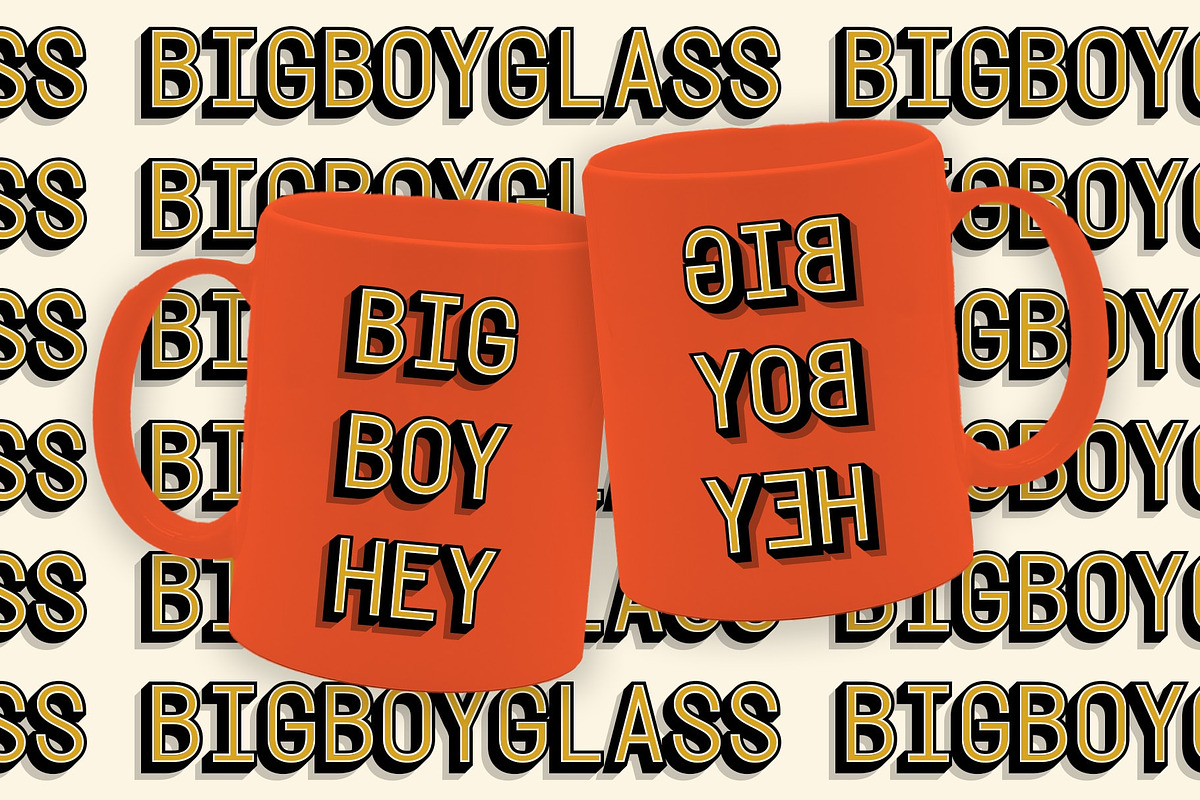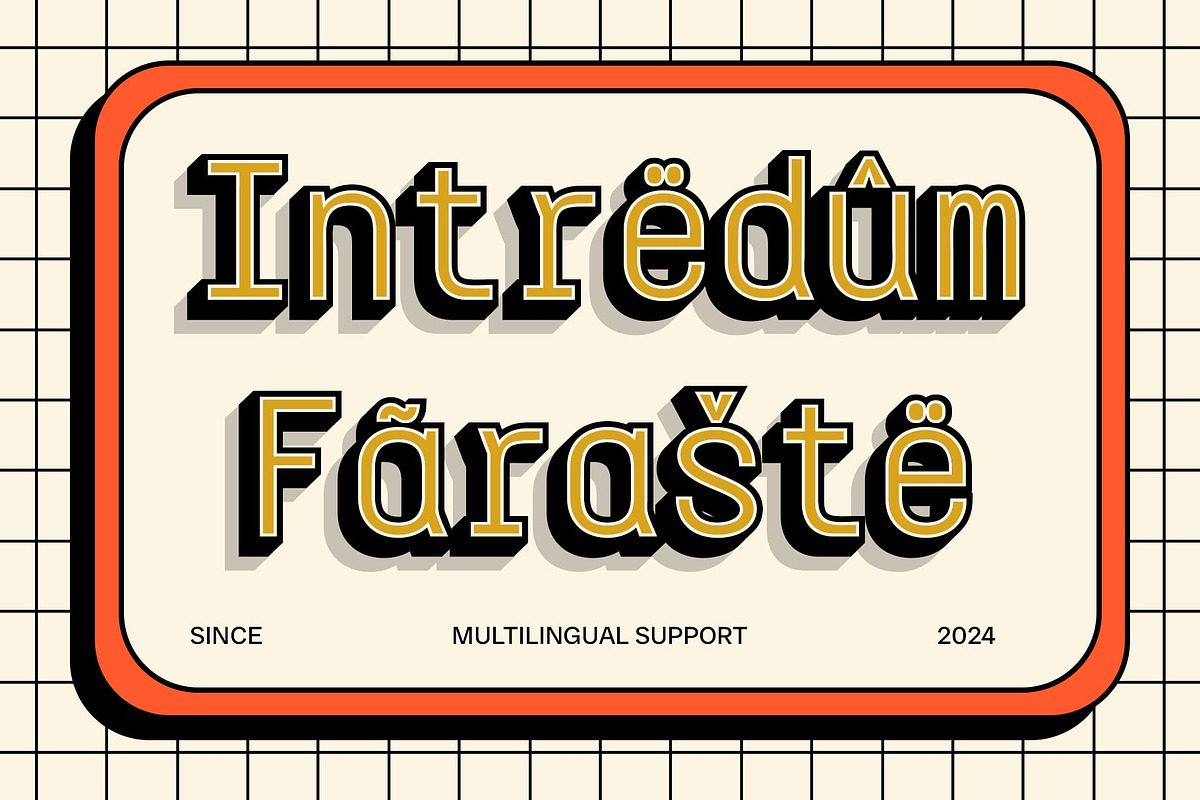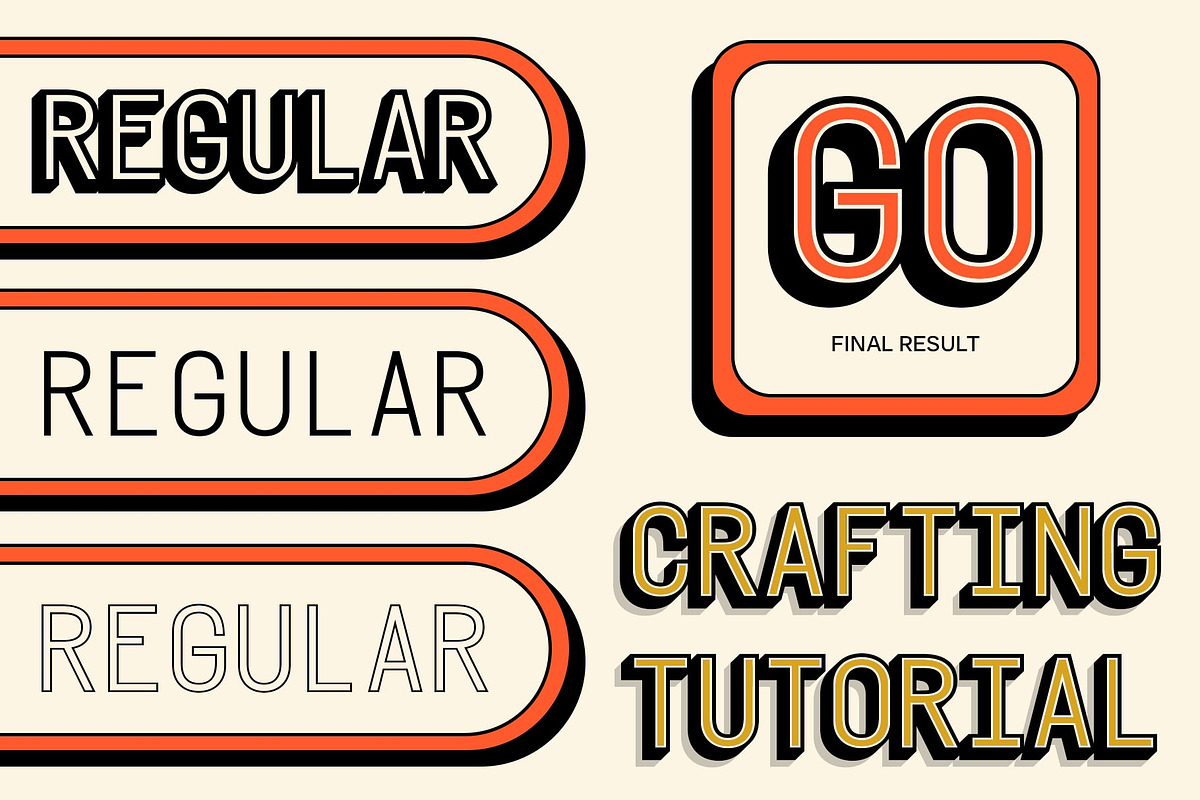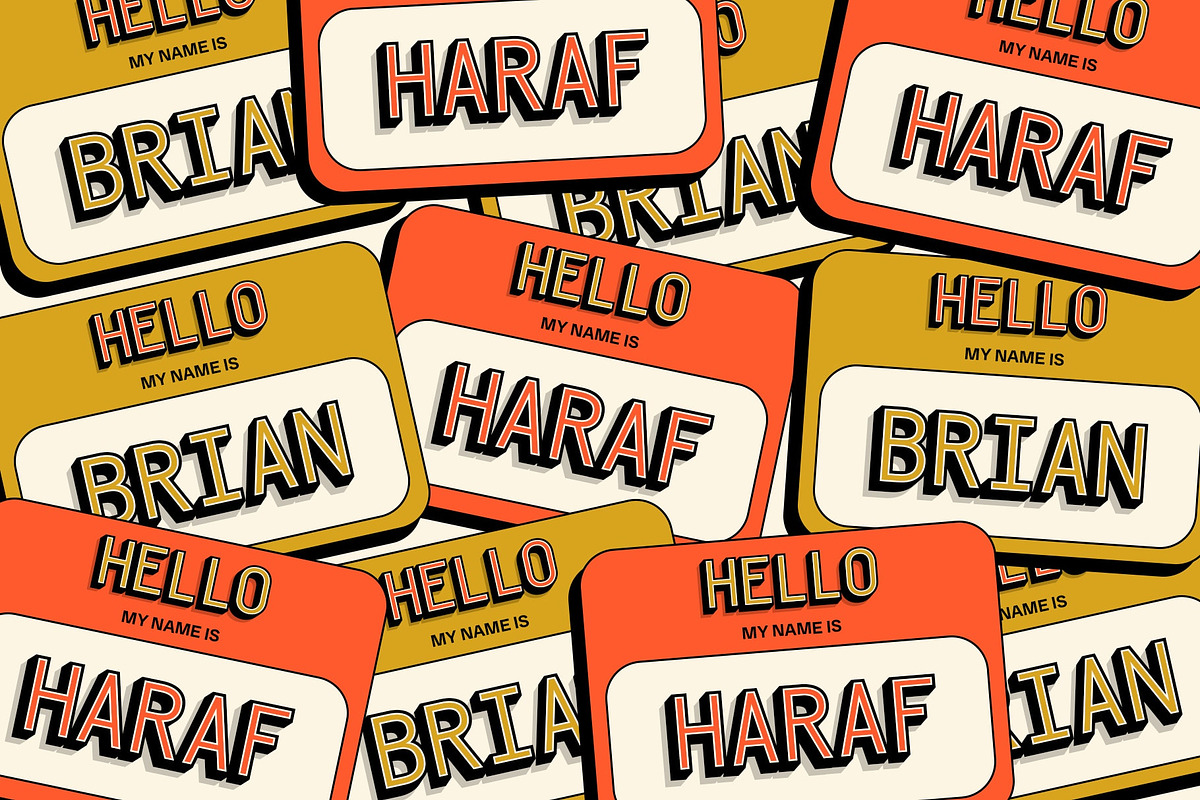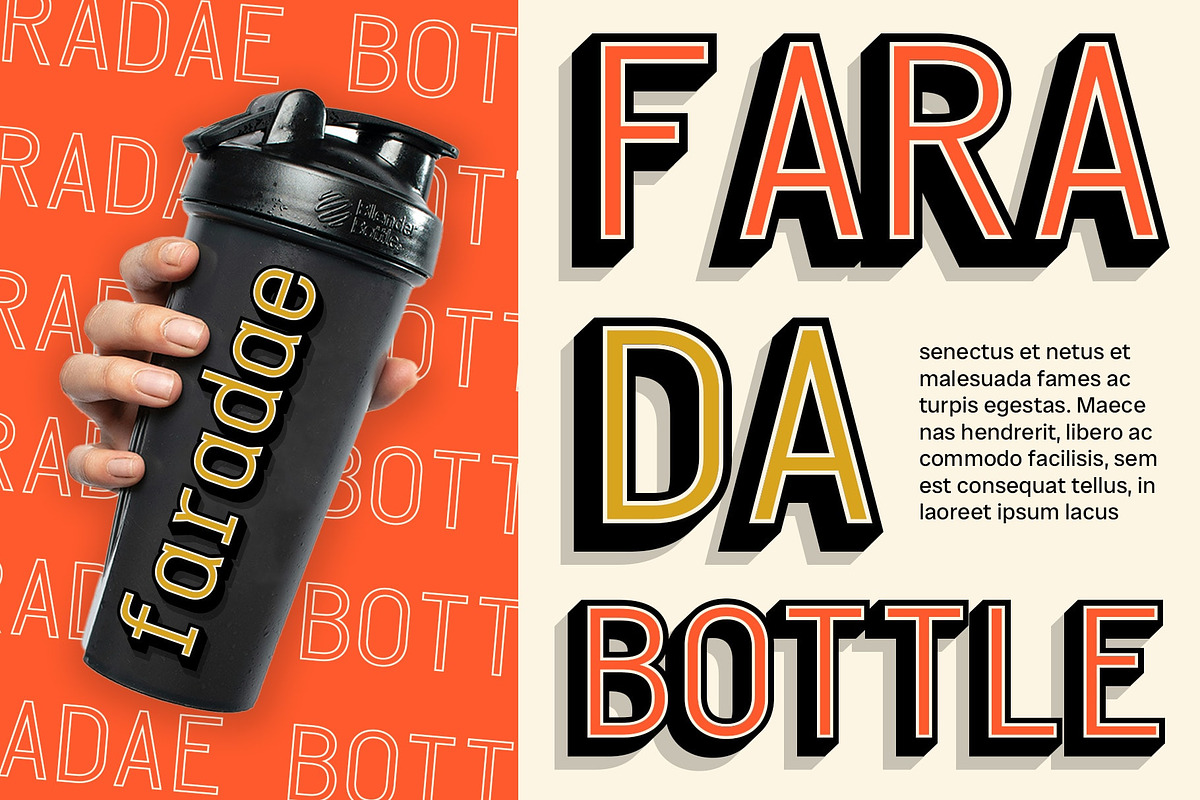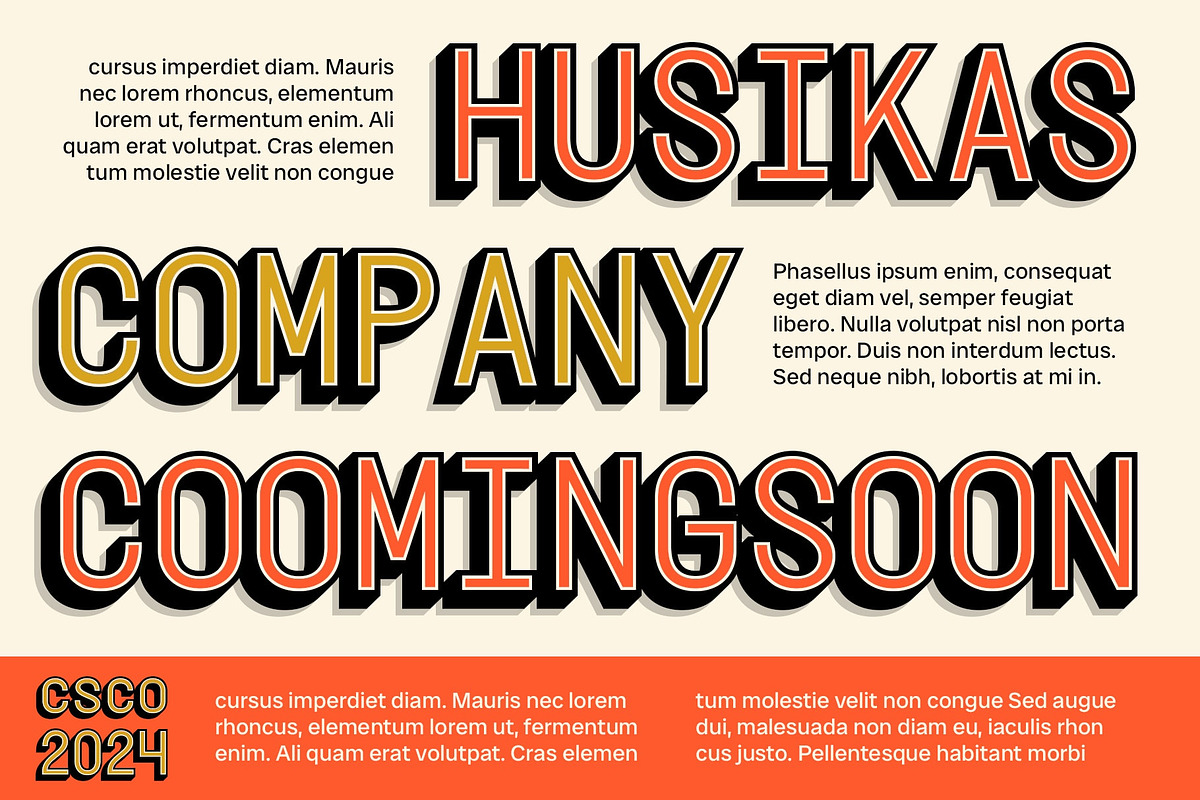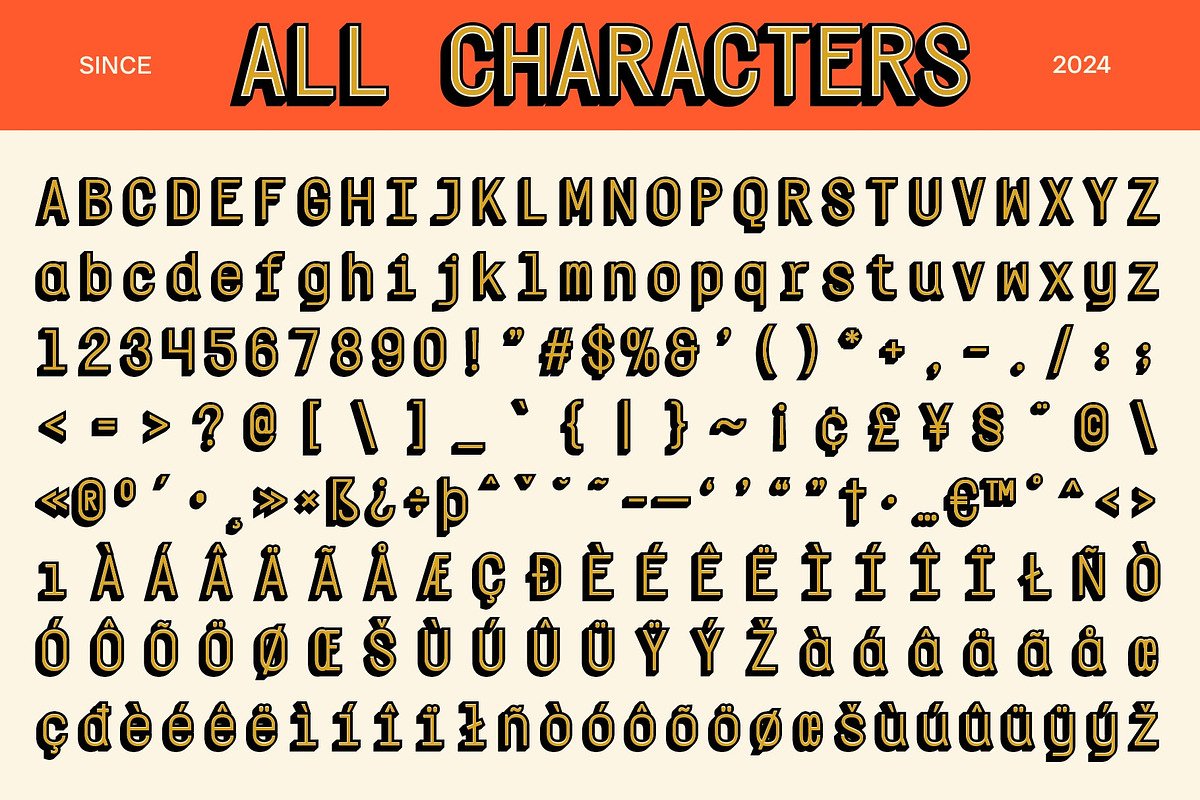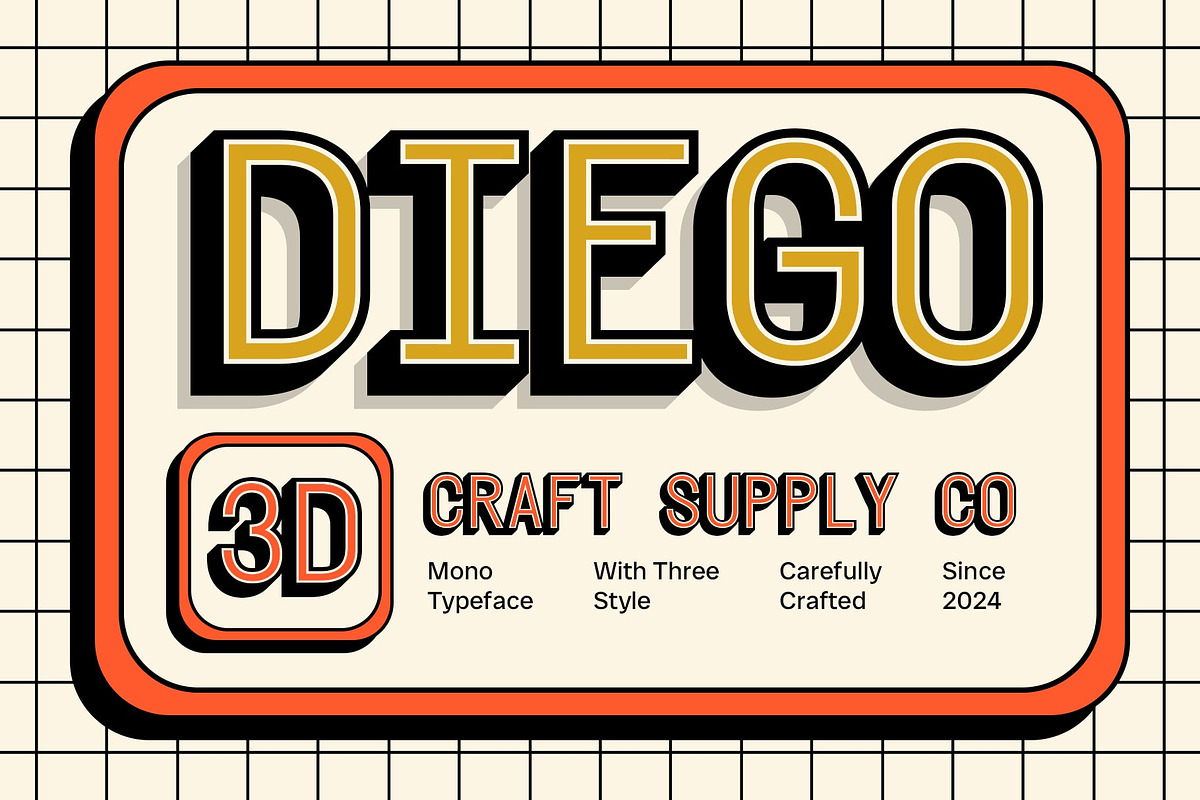
CS Diego Mono 3D
CS Diego Mono 3D: Adding Depth to Monospaced Simplicity
Strong and Dimensional CS Diego Mono 3D is a monospaced sans-serif font with a 3D form, perfect for designs aiming to display text with a strong, attractive, and dimensional appearance. Its monospaced design adds a sense of structure and uniformity to any project, ensuring your message is bold and impactful.
Ideal for Various Designs Perfect for logos, titles, promotional graphics, and other projects, this CS Mono 3D font ensures your text stands out and commands attention. Its 3D effect enhances the visual appeal, making it an excellent choice for designs that require striking and impactful text.
Versatile and Eye-Catching Despite its monospaced format, this CS Mono 3D font remains versatile and eye-catching. Its sans-serif style makes it suitable for a wide range of projects where a font that combines strength and attractiveness is essential for making a statement.
Perfect for Adding a Dimensional Touch CS Diego Mono 3D is ideal for projects requiring a font with a dimensional touch. Whether you’re designing a logo, title, or promotional graphic, this font will undoubtedly add a distinct and memorable element to your designs.
- CS Diego Mono Regular
- CS Diego Mono Outline
- CS Diego Mono Extrude Right
- CS Diego Mono Extrude Left